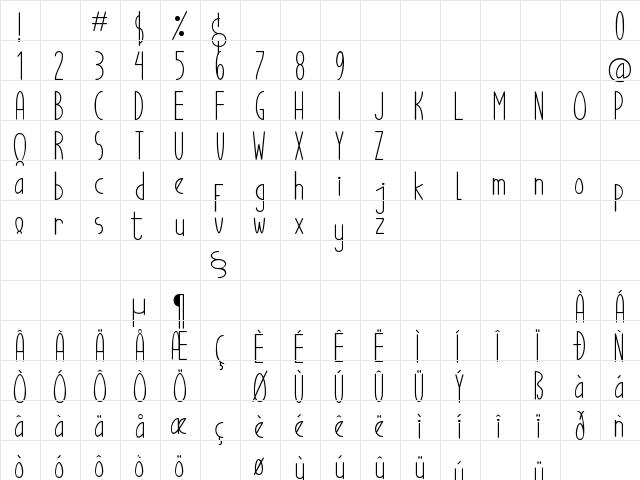
Good Egg Alternatif 1 Regular
| Designer | Aldedesign 2018 |
Design Context for Good Egg Alternatif 1 Typeface
Good Egg Alternatif 1 is a composed and adaptable typeface that performs quietly and consistently across a wide range of design contexts.